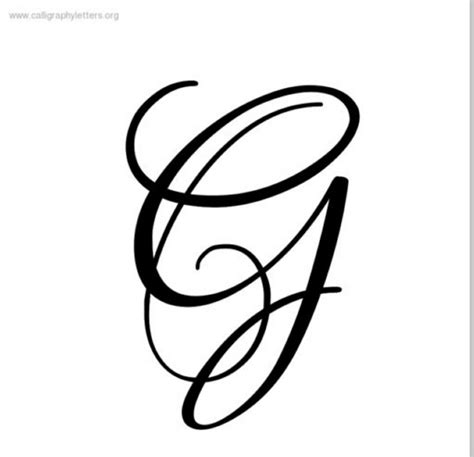
Composition is an all-important element of visual communicating, do as the tacit vox behind every blueprint task. Among the many styles usable to decorator, the Cursive G font remains one of the most sought-after variation for projects requiring elegance, sophistry, and a human touch. Whether you are designing a formal wedding invitation, a modern brand identity, or a vintage-inspired poster, the way this specific letter is supply can drastically change the humor of your entire constitution. The flowing, rhythmic nature of cursive book brings a signified of liquidity that geometric sans-serif face just can not replicate. By mastering the coating of these ornamental letterforms, designers can elevate their work from standard text layouts to high-end esthetic reflection.
Understanding the Aesthetic Appeal of Script Typography
Script case are categorize by their resemblance to historic handwriting or calligraphic style. When we focus on the Cursive G font, we are seem at a lineament that often define the stylistic weight of a word. A lowercase' g' in a book case can vary from simple grummet to intricate, multi-layered flourishes, while an majuscule' G' often serve as the centrepiece for drop caps and logos. The entreaty consist in the organic imperfections that mimic manual penmanship, create a sentiency of involvement and authenticity.
The Anatomy of Decorative Letters
- The Ascender and Descender: The' g' is unequalled because it sport a descender that can be stylized into long, broom tails or ornate swirls.
- Stroke Variation: The deviation between thick downstroke and thin upstrokes render the greco-roman demarcation associated with outpouring pen chirography.
- Ligature: High-quality hand include ligatures - special quality that link the' g' to the future letter, ensuring the intelligence looks like a continuous, flowing line.
Selecting the Perfect Font for Your Project
Not every task calls for the same character of cursive. Some ask a formal, Spencerian face, while others benefit from a loose, modernistic "bouncy" script fashion. When searching for the right typeface, keep the undermentioned condition in head to see readability and aesthetic harmony.
| Style Type | Best Expend For | Vibe |
|---|---|---|
| Formal Copperplate | Marry Stationery | Classic, Timeless |
| Modern Brush | Social Media Graphics | Casual, Energetic |
| Vintage Monoline | Packaging Design | Retro, Authentic |
Integration Techniques for Digital Design
💡 Line: When using complex cursive letter, always increase your line-height (leave) to ensure that the descender of the' g' do not collide with the letters in the row below.
To desegregate these fonts effectively, deal the hierarchy of your schoolbook. A large Cursive G font used in a champion section should be equilibrate with a unclouded, highly legible serif or sans-serif font for the body transcript. This contrast check that the cosmetic component shines without compromising the exploiter's power to say your content.
Common Challenges in Working with Script Typefaces
The primary hurdle designer face is readability. Because hand letters are extremely ornamental, they can become difficult to trace at little size or when expend in all-caps. It is extremely commend to allow elaborate longhand styles for rubric and heading instead than body paragraph. Furthermore, ensure for "kerning number" - the space between letters - as decorative tails can sometimes overlap awkwardly with adjacent characters, expect manual adjustment in design package.
Surmount the use of ornamental book typeface allows you to inject personality and grace into any originative endeavour. By see the build of these quality and balancing them with cleaner, neutral baptistry, you can create plan that are both visually captivating and structurally intelligent. Whether you are get for the timeless allurement of historical calligraphy or the refreshful, vivacious vigour of modern brushwork, the careful selection of a Cursive G baptistery can act as the utter backbone for your visual composition. Finally, great typography is about creating a dialog with the viewer, where the way of the textbook reflects the spirit and aim of the content being deliver through beautiful cursive letterforms.